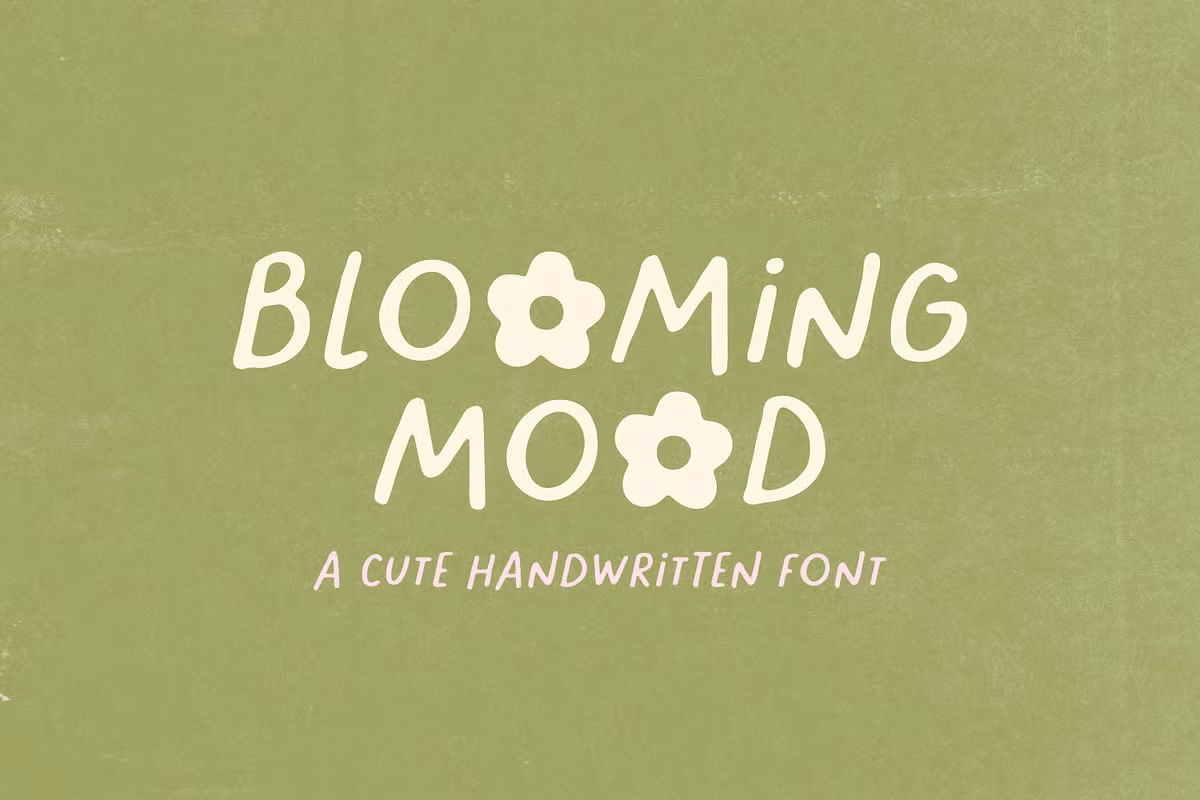
Blooming Mood Cute Font Free Download is a charming and playful typeface that brings a cheerful vibe to any design project. With its soft curves, rounded edges, and whimsical style, this font is perfect for creating fun branding, greeting cards, children's books, social media graphics, and anything that needs a lighthearted touch.
Whether you're working on a brand for a children’s store, designing a playful invitation, or adding a happy feel to your social media posts, Blooming Mood adds an adorable and fresh touch to your typography. It’s the perfect font for designers who want to spread positivity and joy.